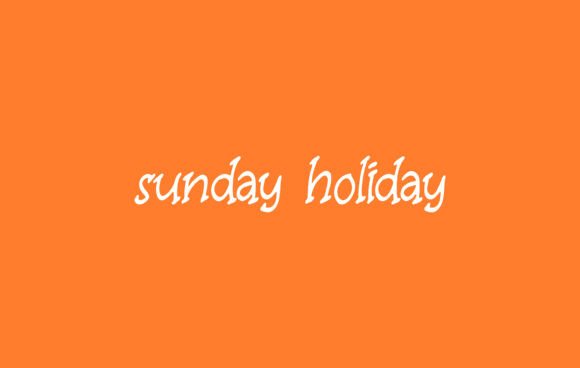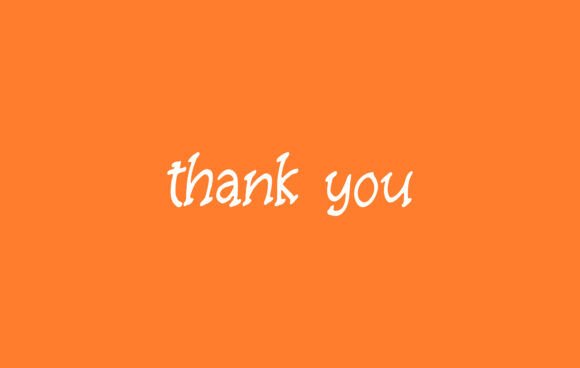
Introduction to Slender Snipe Font
Slender Snipe font is an authentic handwritten font with a romantic touch.
Key Features of Slender Snipe Font
Why Choose Slender Snipe Font?
Slender Snipe Font offers exceptional quality and versatility, making it a valuable addition to your design toolkit. Whether you’re creating for personal projects or commercial use, Slender Snipe Font delivers professional results.